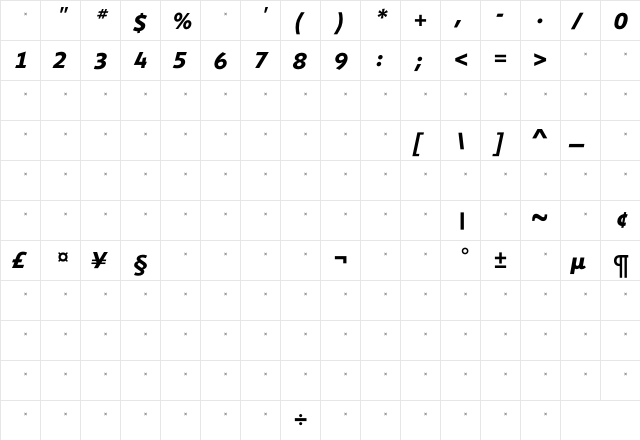
ShinnBoldItalicTab Regular Font Preview
ShinnBoldItalicTab Regular
ShinnBoldItalicTab Regular Font Details
Design Context for ShinnBoldItalicTab Typeface
ShinnBoldItalicTab takes a measured approach to typography — its balanced proportions and neutral character make it a reliable workhorse for both digital and print work. The slanted form adds forward momentum and visual energy. Its bold stroke weight gives it real presence on the page.